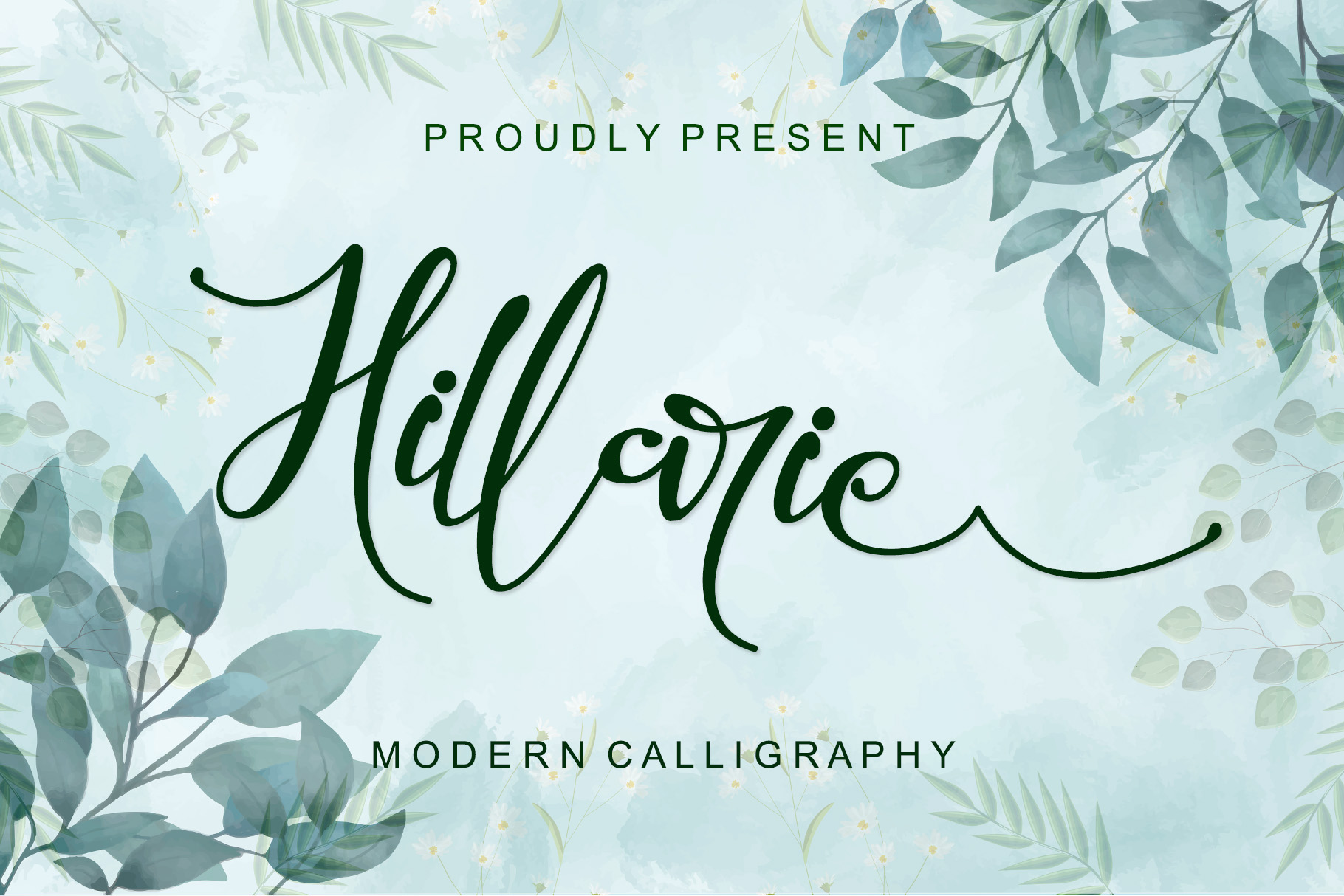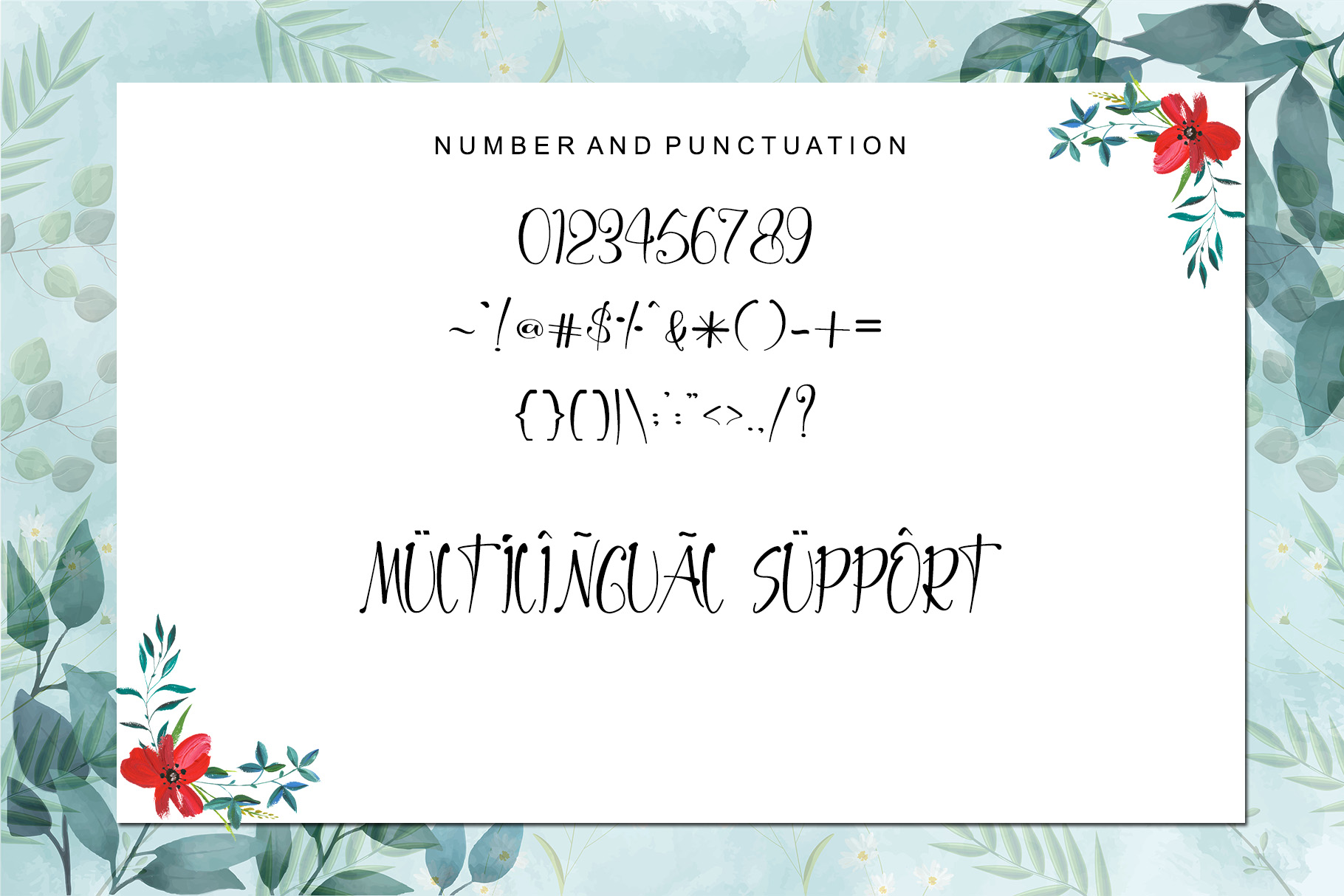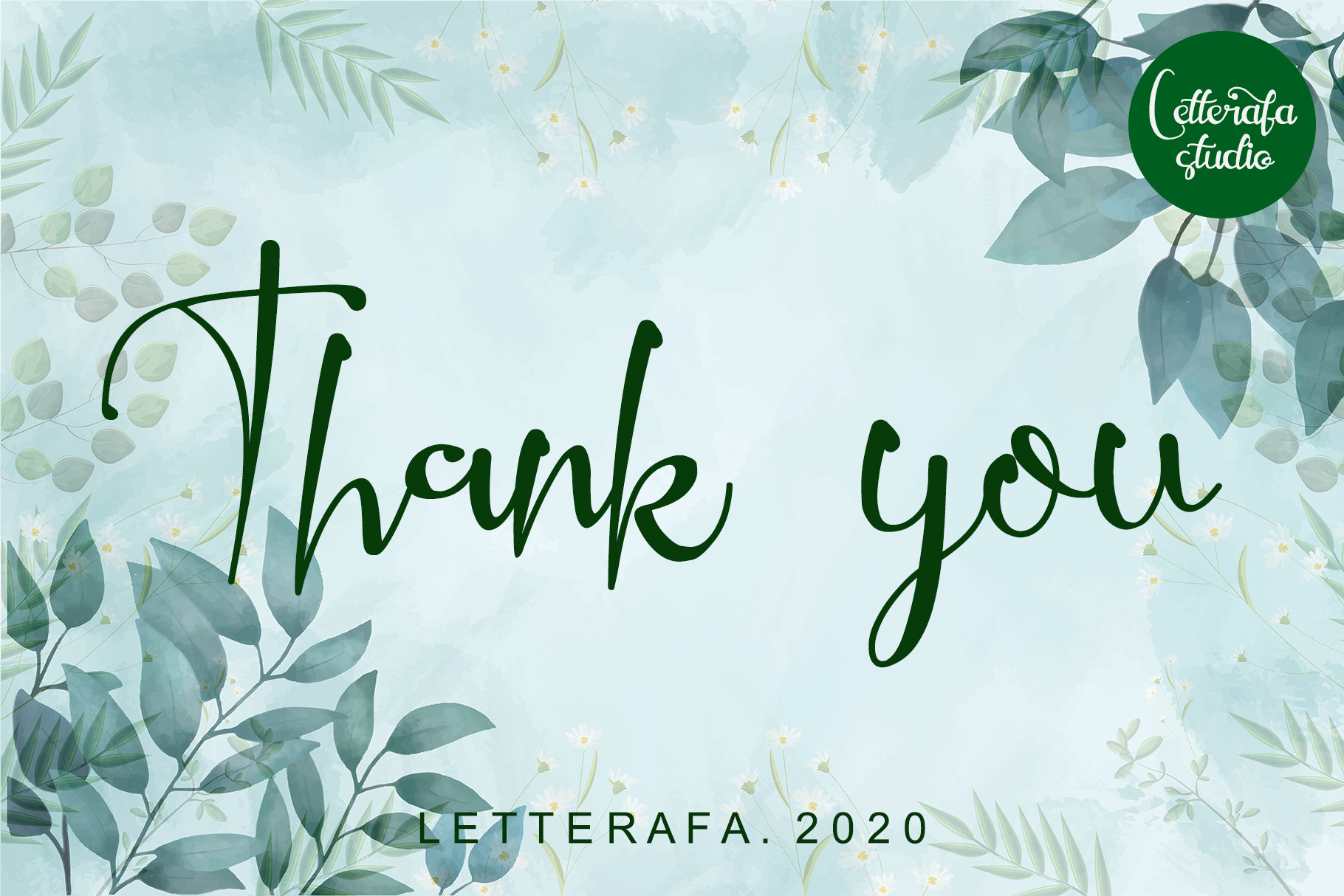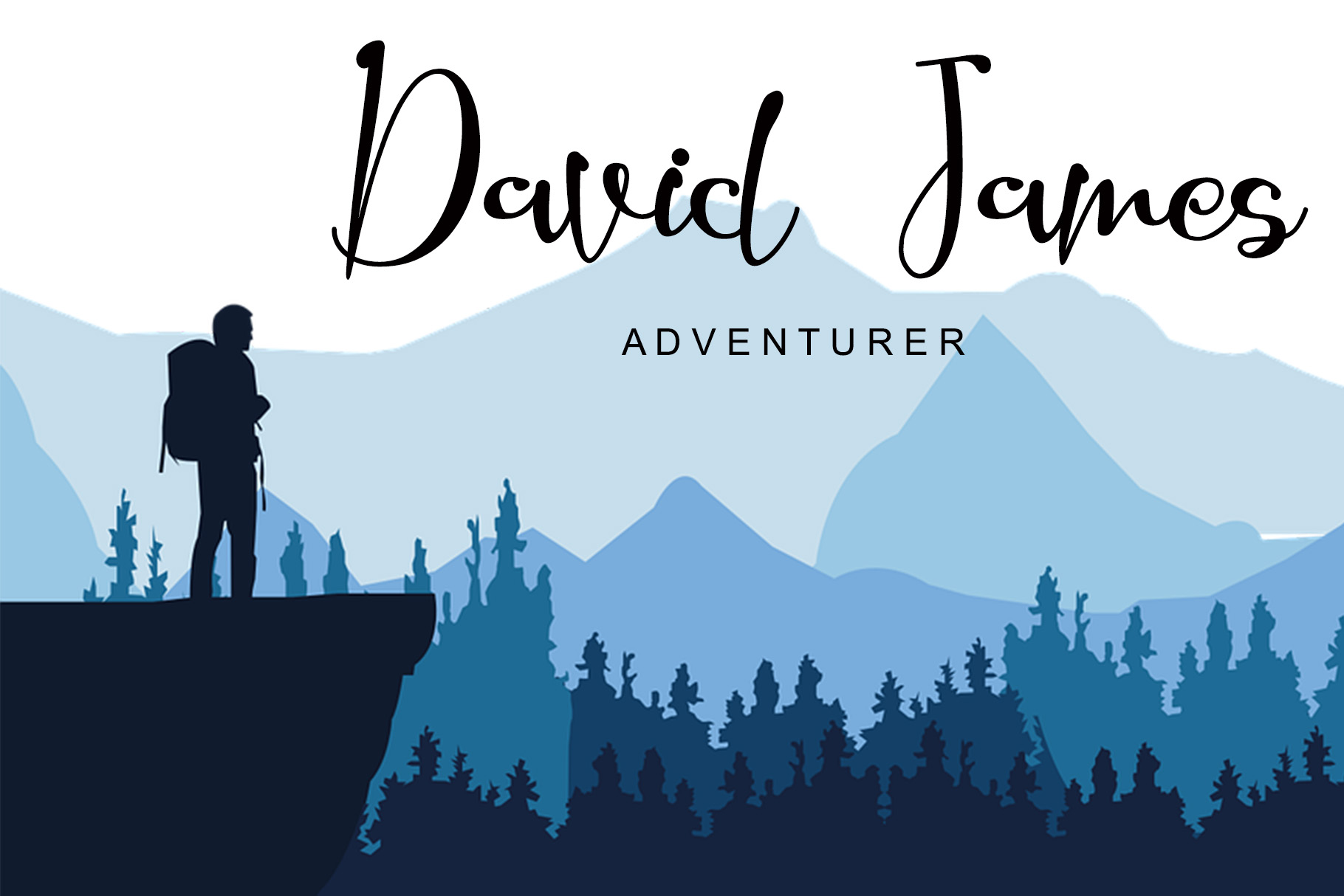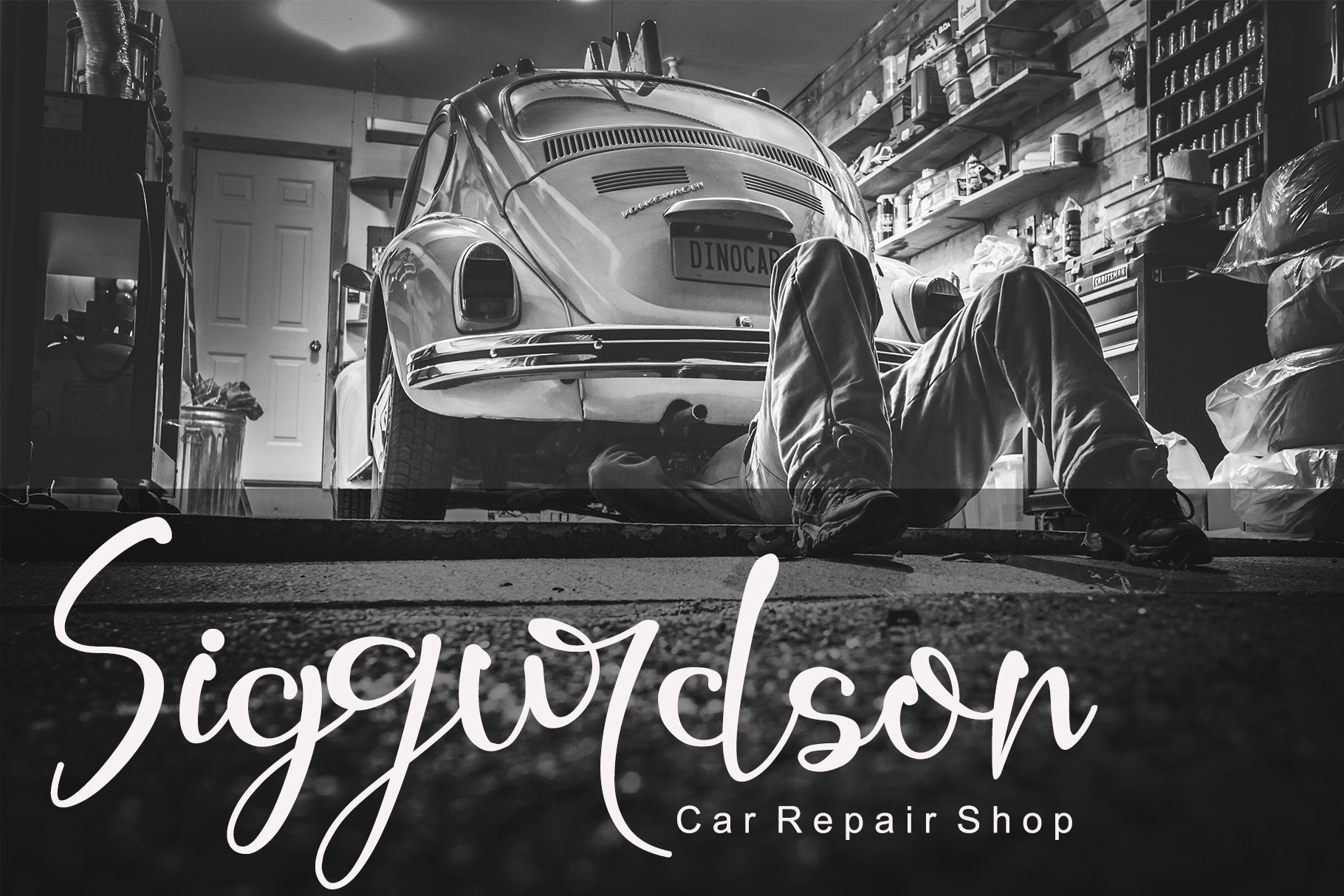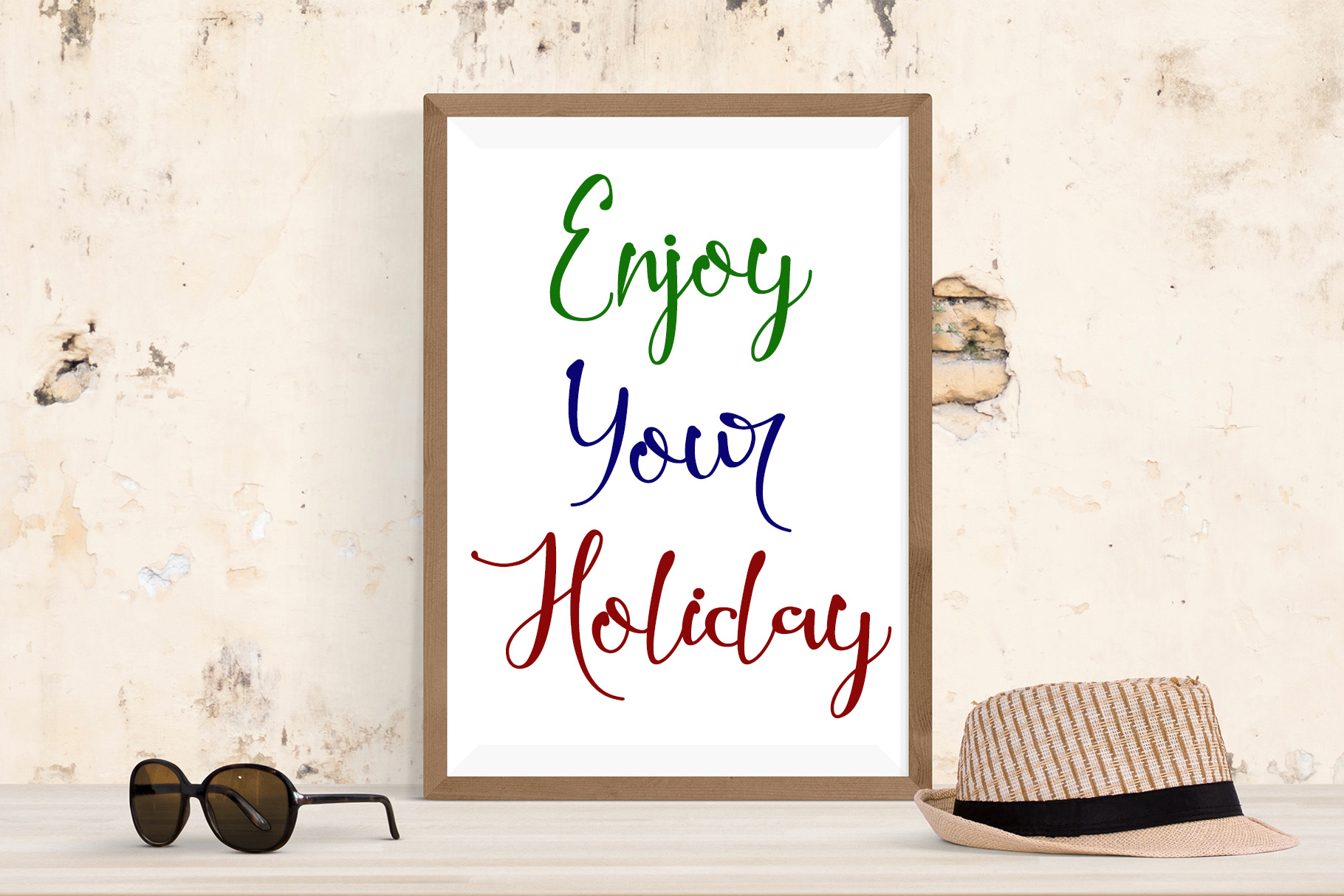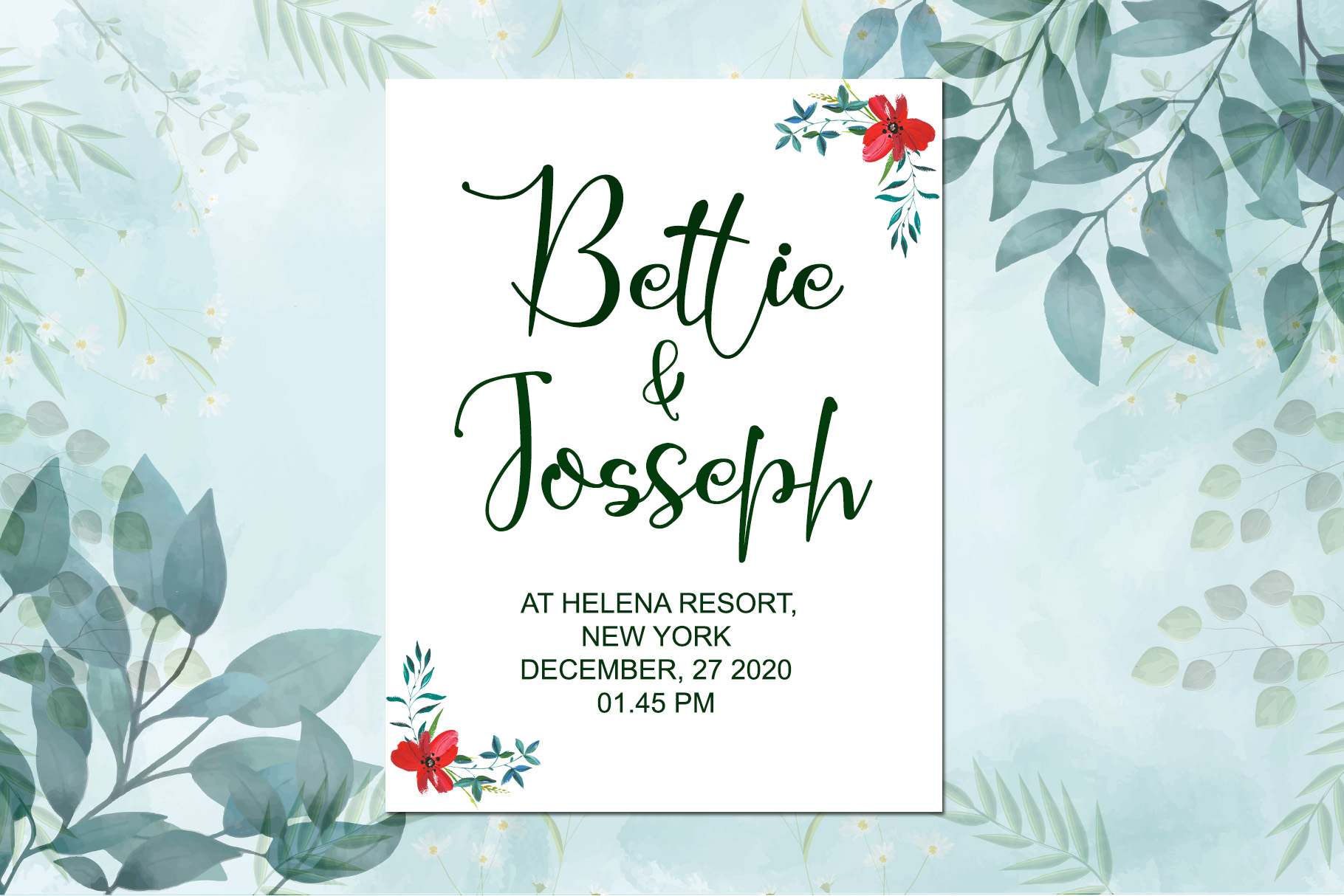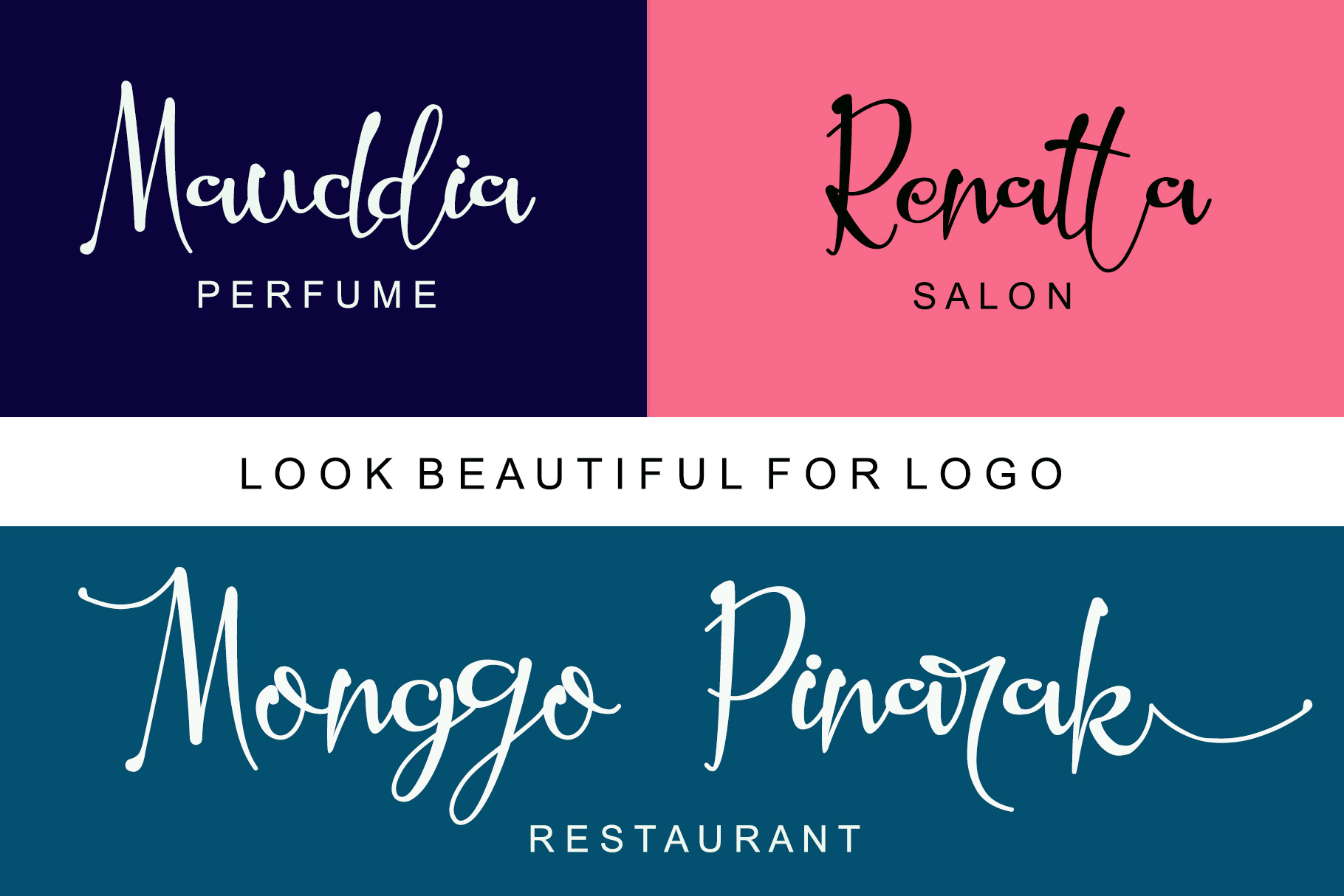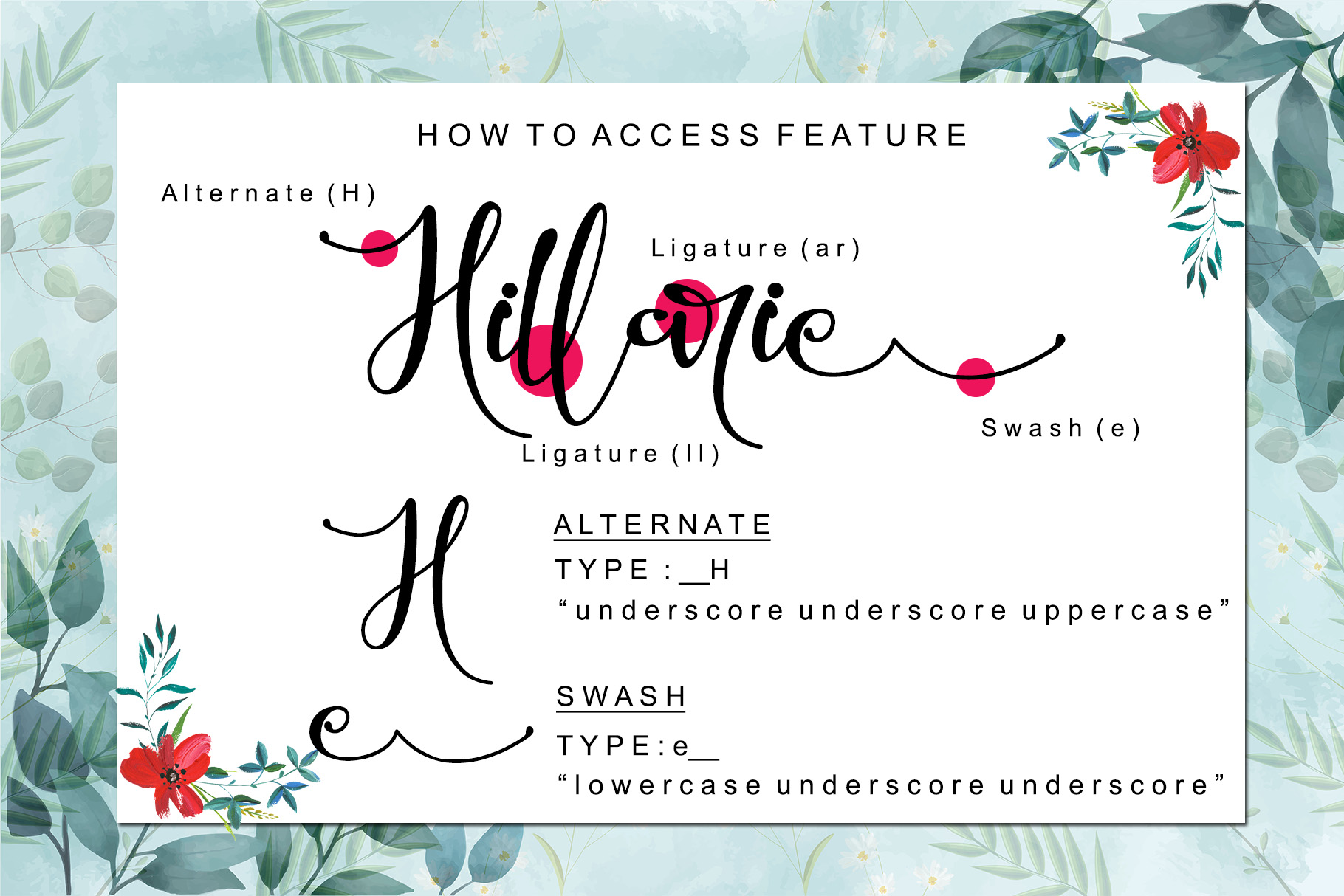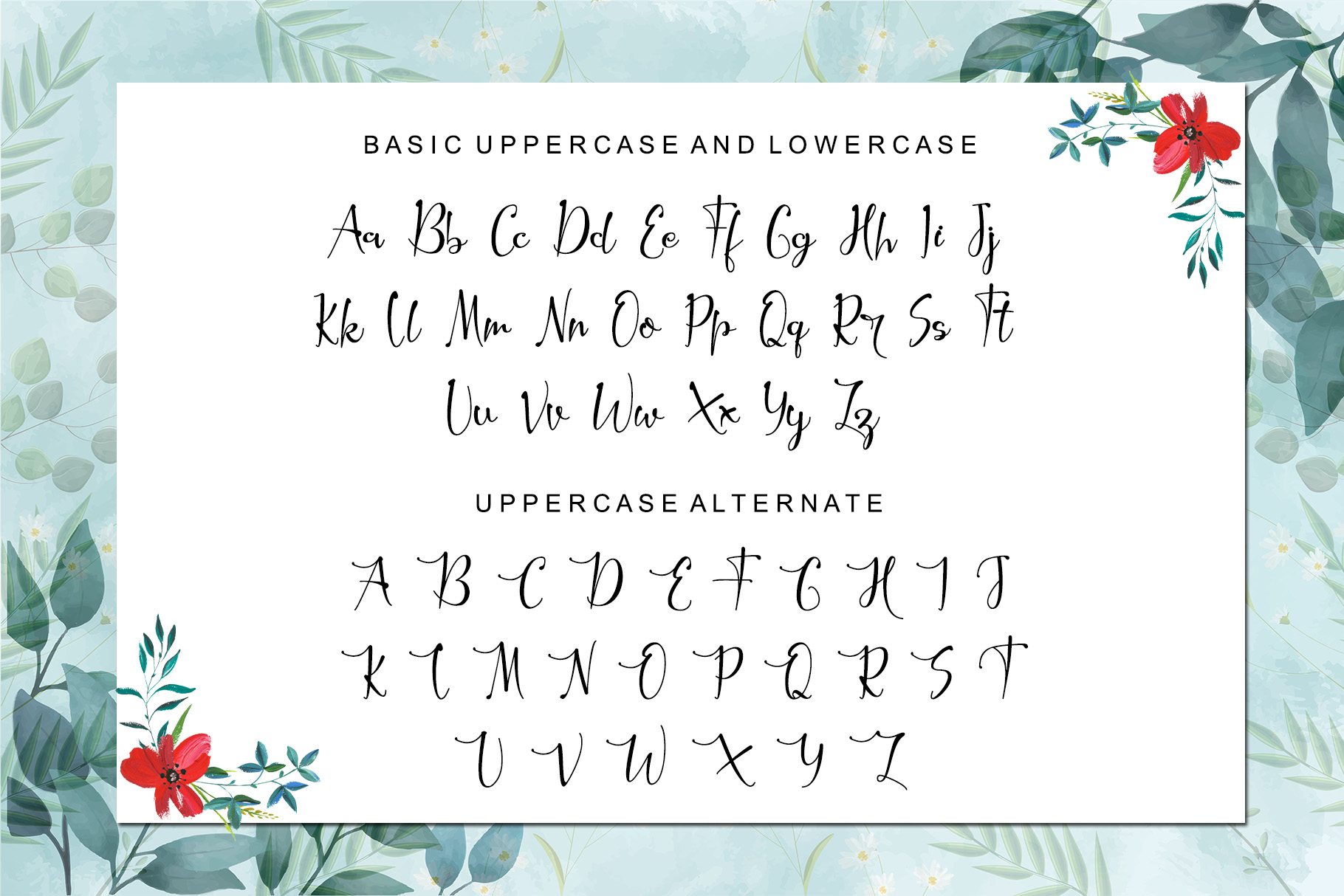
Hillarie Font was created by Ahmad Afandi (Letterafa Studio). It has flowing letters that will give your designs a unique and sweet look. Hillarie font is perfect; logos, greeting cards, a package design, a brand identity, craft design, any DIY project, book title, wedding invitation, packaging, and more.